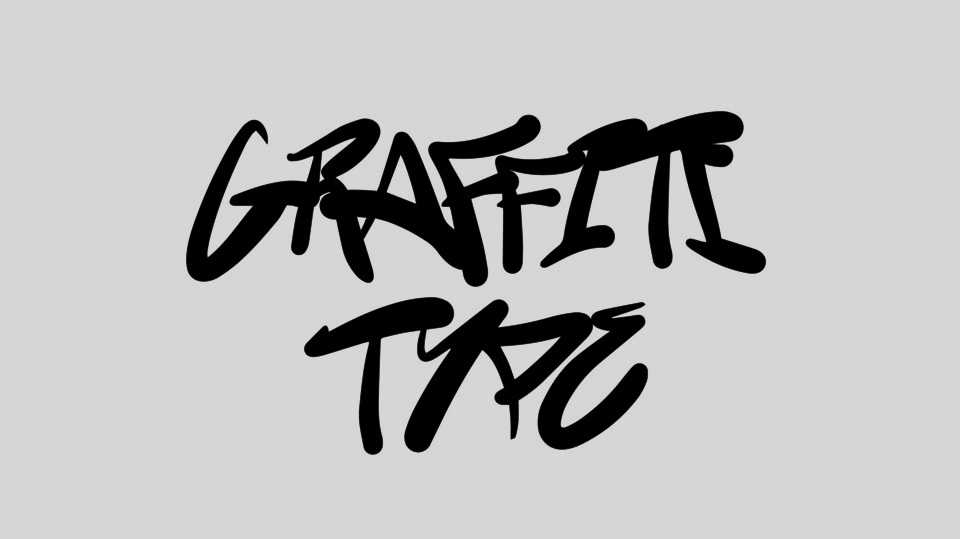
Download Graffiti Type font, a hand lettered typeface, inspired by the street signages and artworks. With it’s authentic look, Graffiti Type font is perfect for posters, t-shirt design, stickers and more.